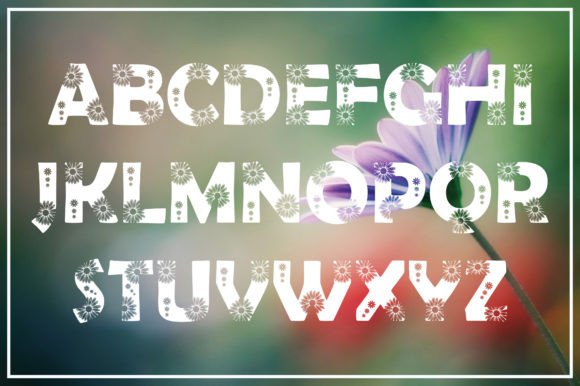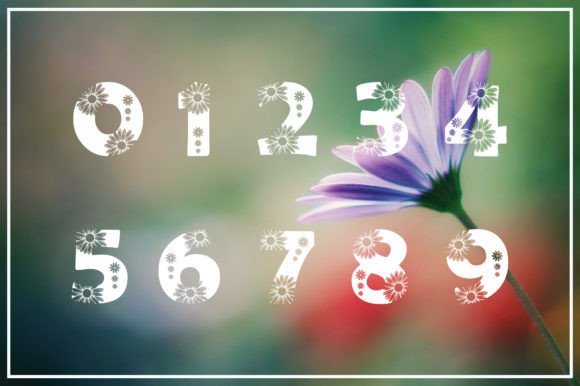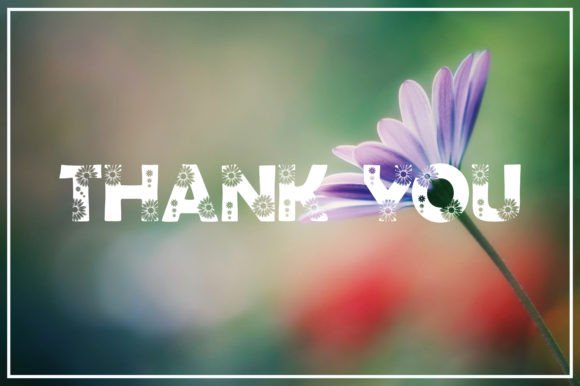
Daisy Font: The Perfect Addition to Your Design and Craft Projects
Are you looking for a fun and cute decorative display font to elevate your design and craft projects? Look no further than the delightful Daisy Font! This charming font is perfectly suitable for any creative endeavor, and we’re excited to share its features and benefits with you.
What is Daisy Font?
Daisy Font is a decorative display font designed to add a touch of whimsy and playfulness to your projects. Its fun and cute aesthetic makes it an ideal choice for designers, crafters, and makers who want to create eye-catching and engaging content. Whether you’re working on a DIY project, creating social media graphics, or designing marketing materials, Daisy Font is sure to bring a smile to your audience’s faces.
Key Features of Daisy Font
- Fun and Cute Design: Daisy Font boasts a unique and charming design that’s sure to capture attention. Its playful aesthetic makes it perfect for projects that require a lighthearted and creative touch.
- Decorative Display Font: As a decorative display font, Daisy Font is designed to make a statement. Its bold and eye-catching design makes it ideal for headlines, titles, and other prominent text elements.
- Versatile and Flexible: Daisy Font can be used in a wide range of projects, from digital designs to print materials. Its versatility makes it a valuable addition to any designer’s or crafter’s toolkit.
Why Choose Daisy Font?
So, why should you choose Daisy Font for your design and craft projects? Here are just a few compelling reasons:
- Adds a Personal Touch: Daisy Font’s unique and playful design allows you to add a personal touch to your projects. Its fun aesthetic helps to create an emotional connection with your audience.
- Easy to Read and Understand: Despite its decorative nature, Daisy Font is surprisingly easy to read and understand. This makes it perfect for projects that require a balance of style and substance.
How to Use Daisy Font in Your Projects
Using Daisy Font in your design and craft projects is easy! Here are some ideas to get you started:
- DIY Projects: Add a touch of personality to your DIY projects, such as handmade cards, gift tags, and more.
- Social Media Graphics: Use Daisy Font to create eye-catching social media graphics, including Facebook posts, Instagram stories, and more.
- Marketing Materials: Add a playful touch to your marketing materials, such as brochures, flyers, and business cards.
Tips and Tricks for Getting the Most Out of Daisy Font
To get the most out of Daisy Font, here are some tips and tricks to keep in mind:
- Experiment with Colors and Textures: Don’t be afraid to experiment with different colors and textures to enhance the visual impact of Daisy Font.
- Pair with Other Fonts: Try pairing Daisy Font with other fonts to create a unique and visually appealing typography combination.
- Use it Sparingly: While Daisy Font is fun and playful, it’s best used sparingly to avoid overwhelming your audience.
| Font Name | Daisy Font |
| Author | AvocadoSVG |
In conclusion, Daisy Font is a fun and cute decorative display font that’s perfectly suitable for any design or crafty idea. Its unique and playful aesthetic makes it an ideal choice for designers, crafters, and makers who want to add a personal touch to their projects. With its versatility, flexibility, and ease of use, Daisy Font is sure to become a valuable addition to your design toolkit. So why wait? Add Daisy Font to your projects today and experience the magic for yourself!